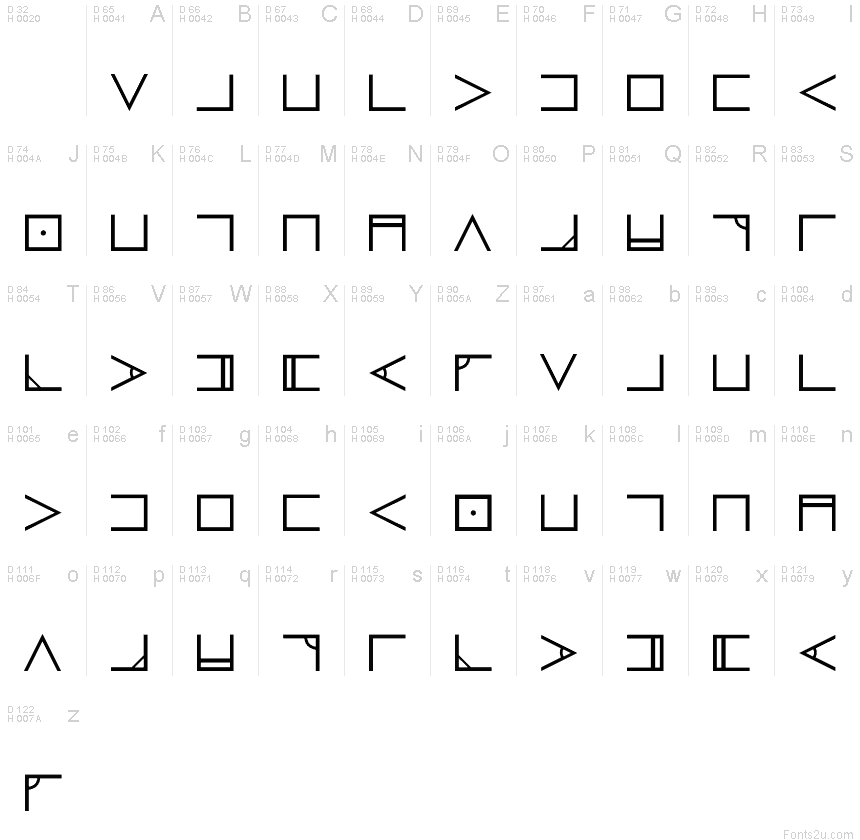
Nugsoth
Nugsoth font by Thomas W. Otto - Norfok Inc. is a free dingbat typeface that turns your keyboard into a panel of strange, geometric symbols. Every mark feels like a shard of alien circuitry: sharp triangles, squared frames, and tight, cable‑like lines that click together like parts of a sci‑fi interface. The strokes are clean and evenly weighted, so even the weirdest glyphs feel intentional and readable as icons rather than random noise.
Using Nugsoth, you can quickly build futuristic borders, HUD‑style dividers, code‑like patterns, or symbolic navigation in game menus, comics, zines, and experimental posters. This free font shines when you repeat and rotate its shapes to create dense, mechanical textures or sparse, coded signals. Pair it with a simple monospaced sans serif at smaller sizes so the symbols stay bold, legible anchors in your layout.
In this historical period there were no letters for 'j', 'u', or 'w'. These letters are variations of 'i' and 'v' .